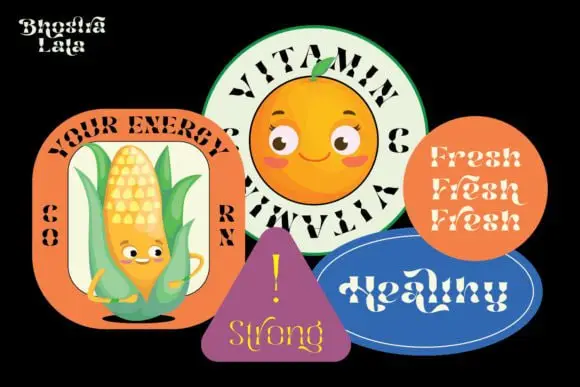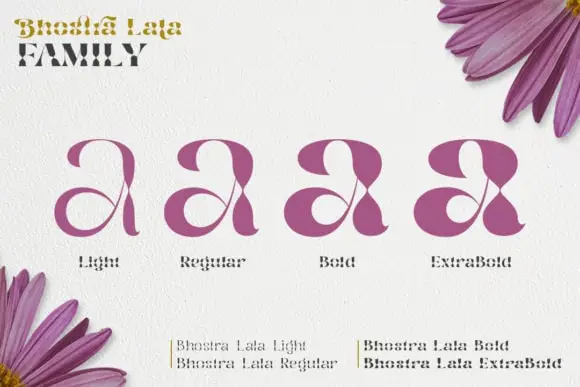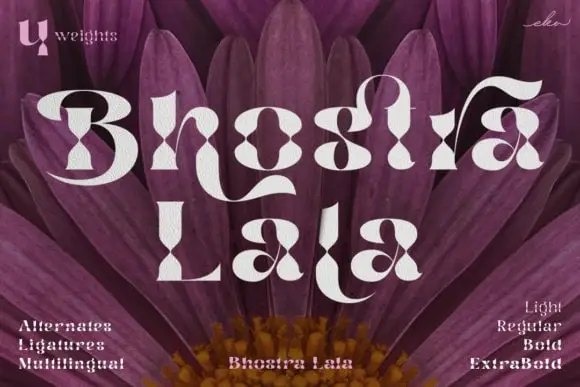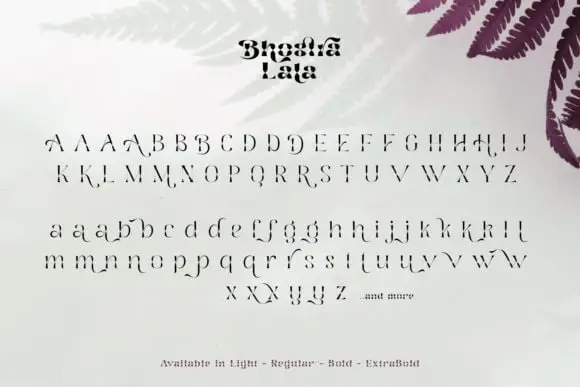
Ekahermawan-Bhostra Lala Font
The Ekahermawan-Bhostra Lala Font is a unique typeface that blends elegance and modernity, making it perfect for various design projects. With its distinct character shapes and stylish curves, this font is ideal for branding, logos, web design, and print materials.
This font is available in multiple weights, providing versatility for different design needs. It comes in OTF and TTF formats, ensuring compatibility across various platforms.
• Utilize this font for eye-catching headlines and titles.
• Combine it with complementary typefaces for a balanced design.
• Experiment with different weights to achieve the desired visual impact.